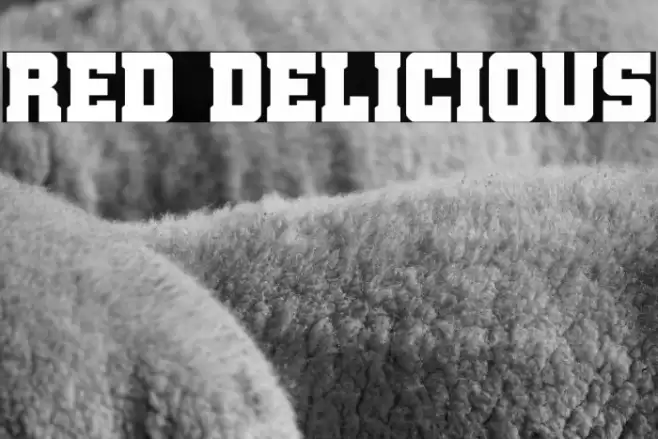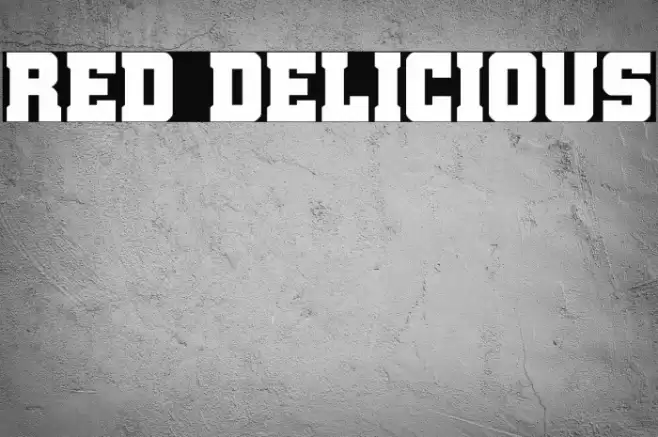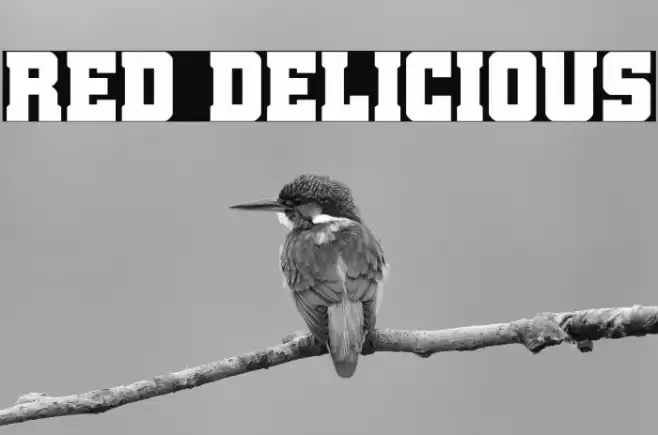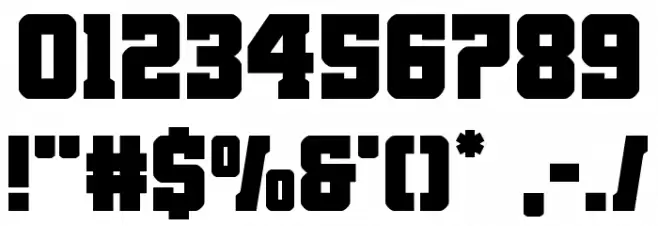
Red Delicious Font
Red Delicious Description
This font features a bold, impactful design with thick, blocky letters that convey strength and stability. The characters are uniformly wide, with consistent stroke thickness that gives it a robust appearance. The uppercase and lowercase letters maintain a cohesive style, with sharp angles and clean lines. The numerals and special characters are equally bold, ensuring readability and emphasis. This font is ideal for making a strong visual statement, suitable for headlines or branding where a commanding presence is desired.
A bold, blocky font with thick strokes and a strong, impactful presence from Uncategorized fonts.
- Proposed Projects: Ideal for posters, logos, sports branding, and any project requiring a bold, assertive typeface.